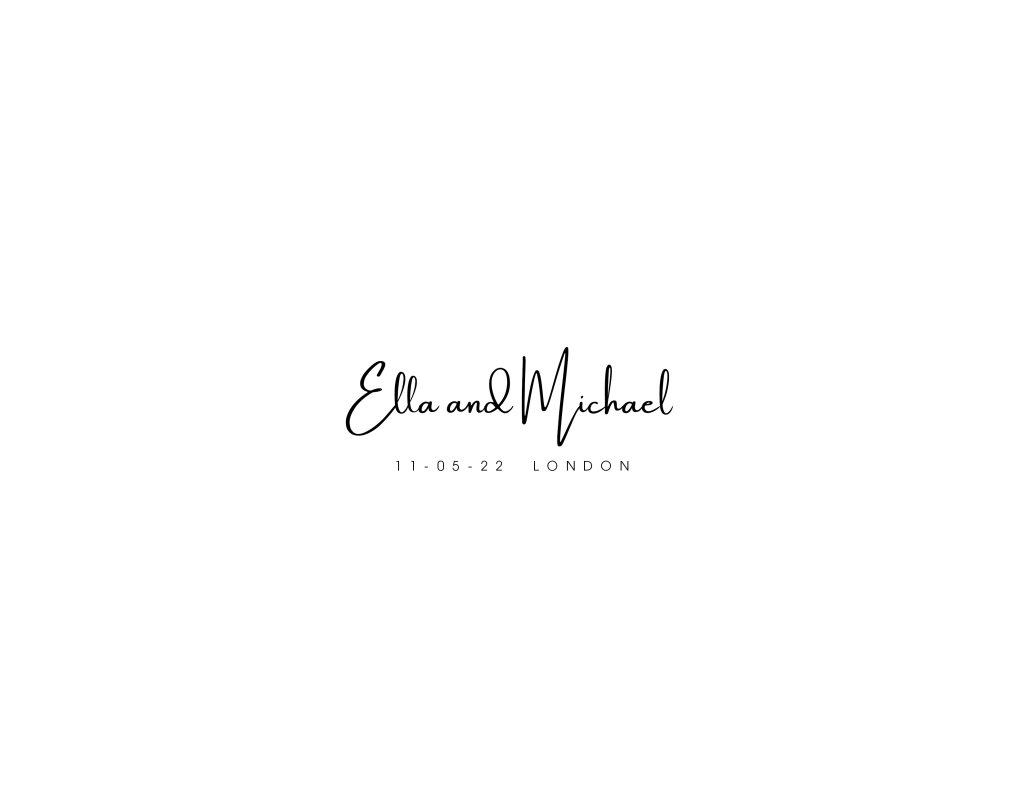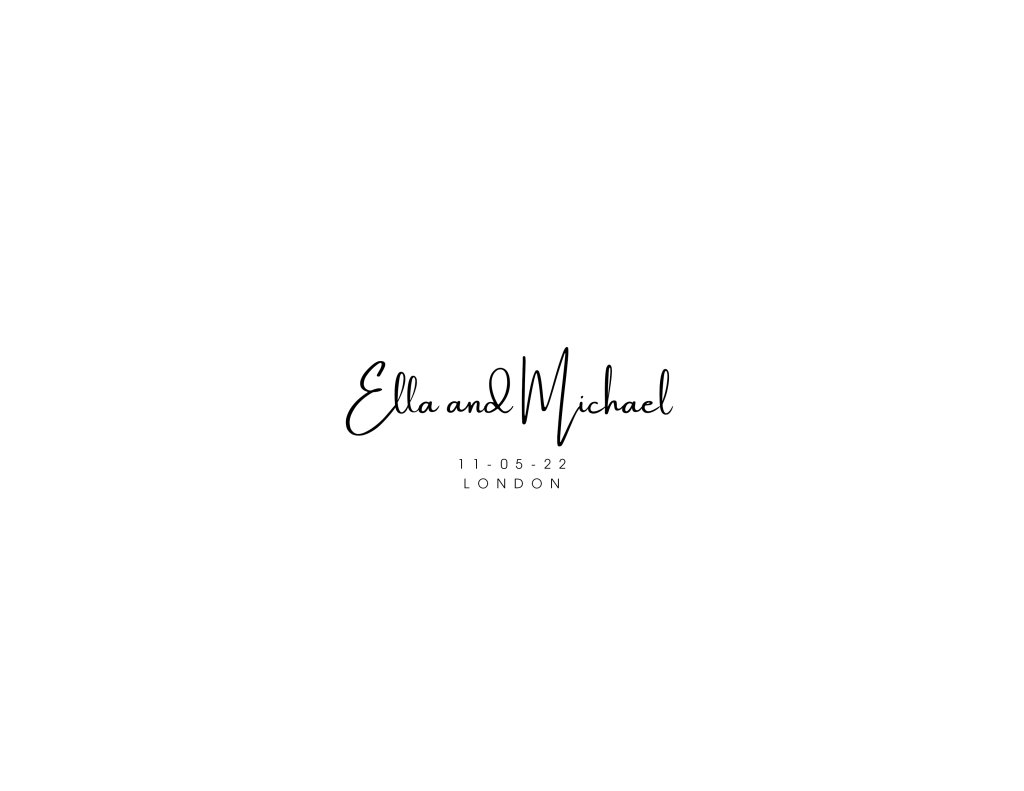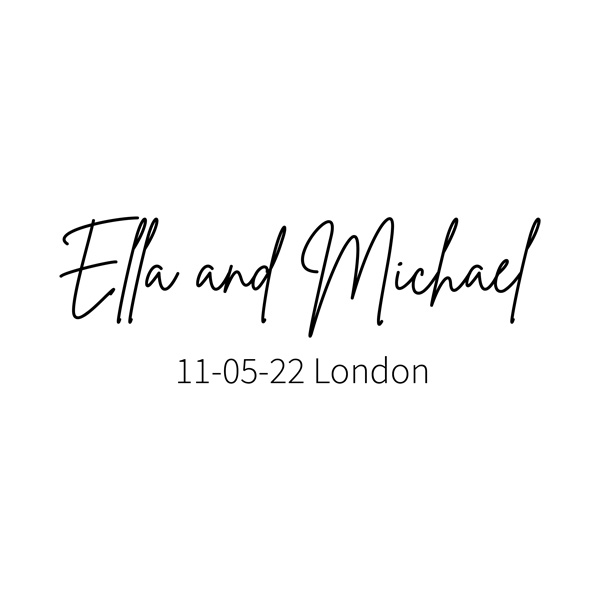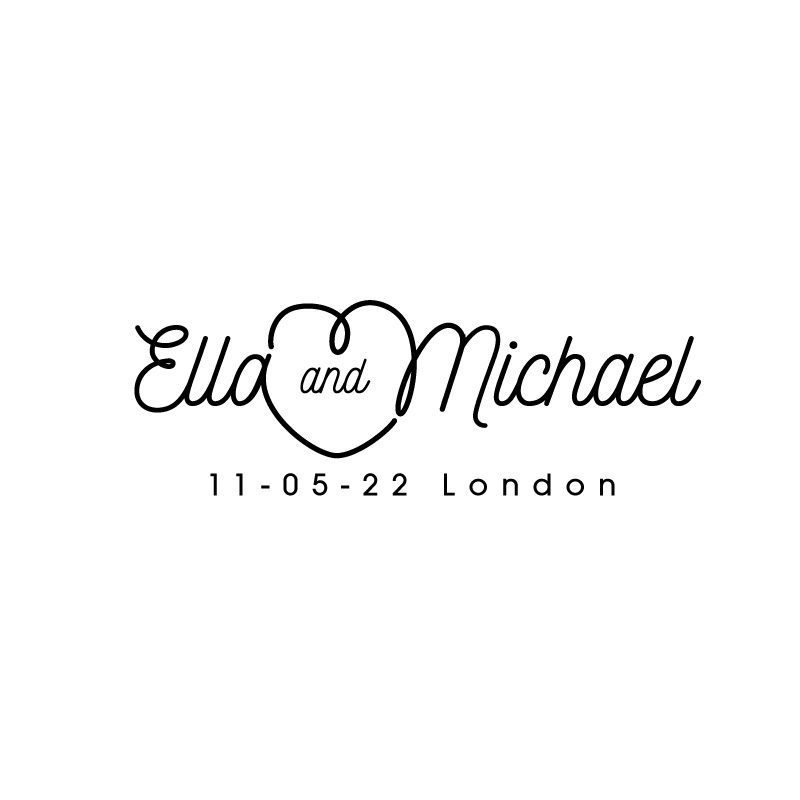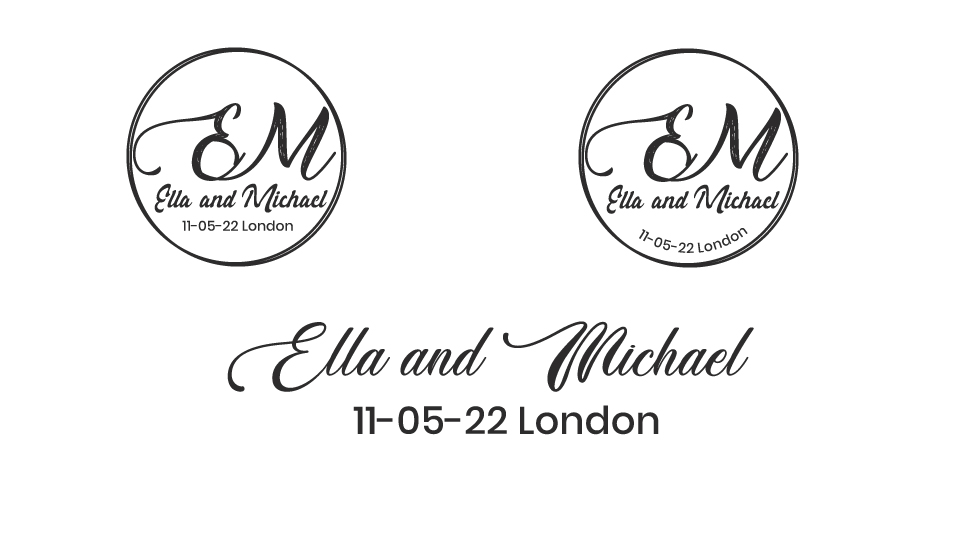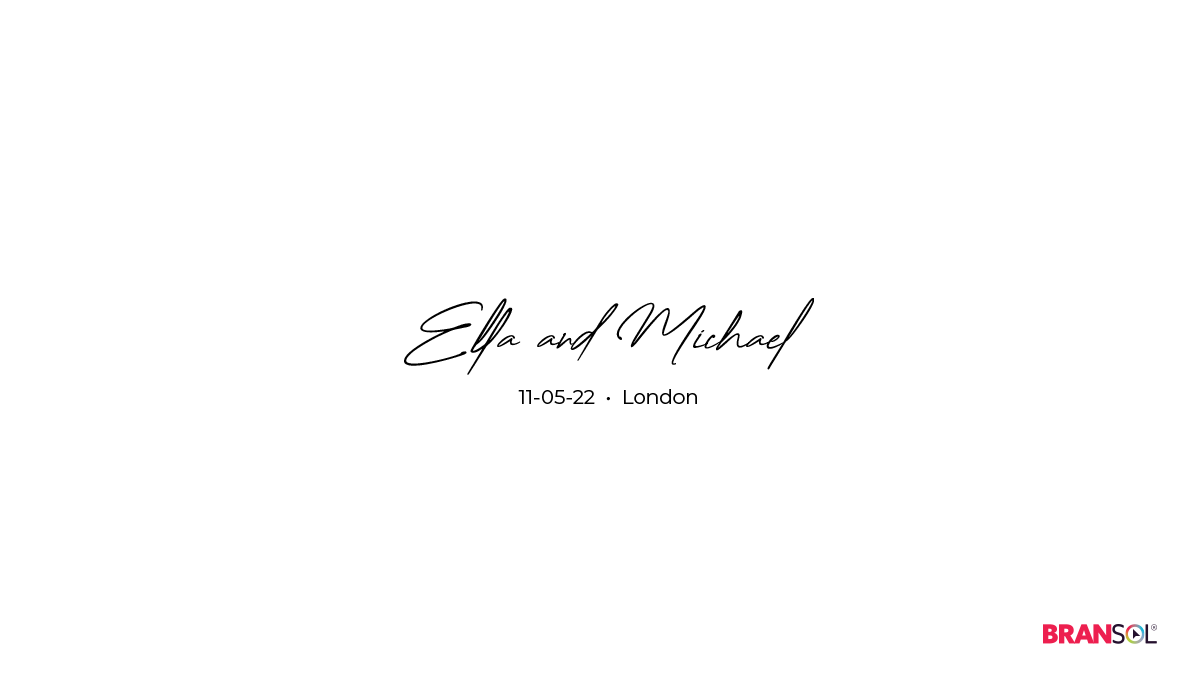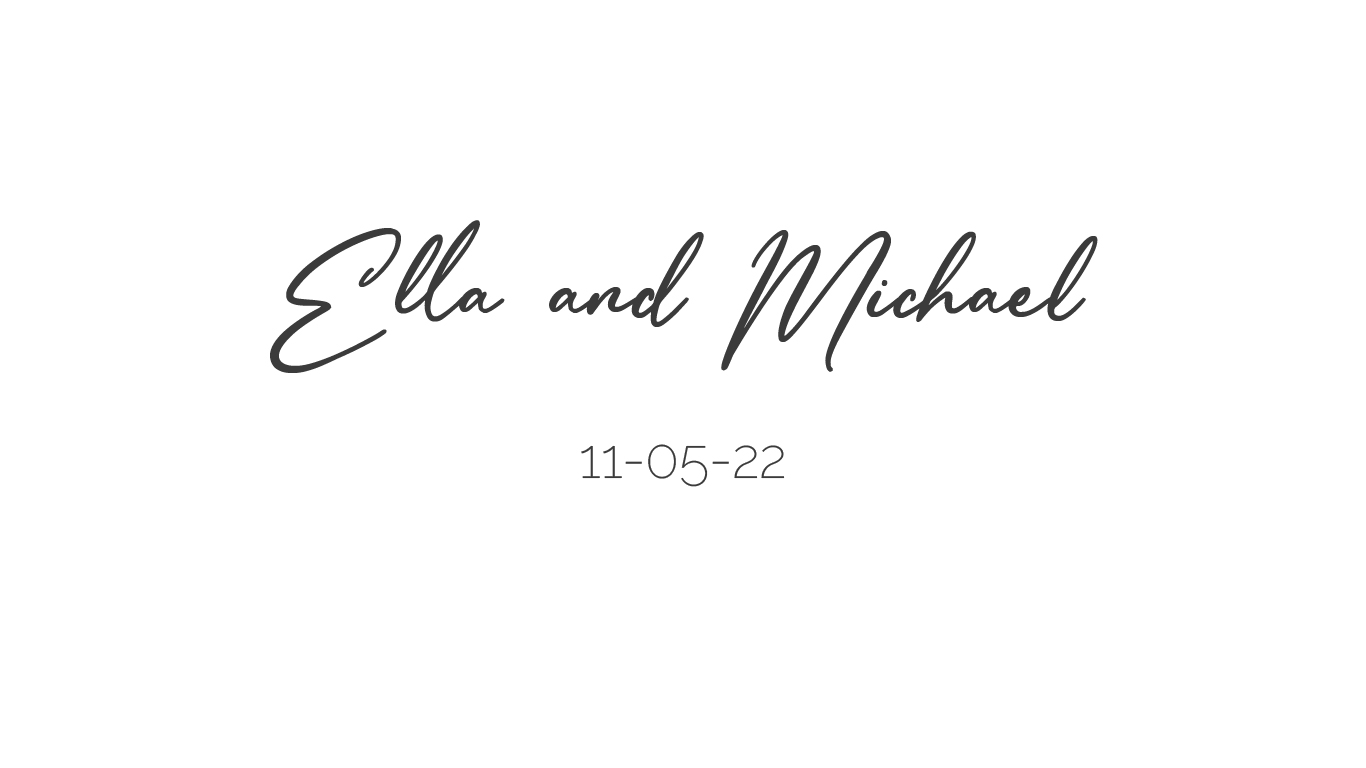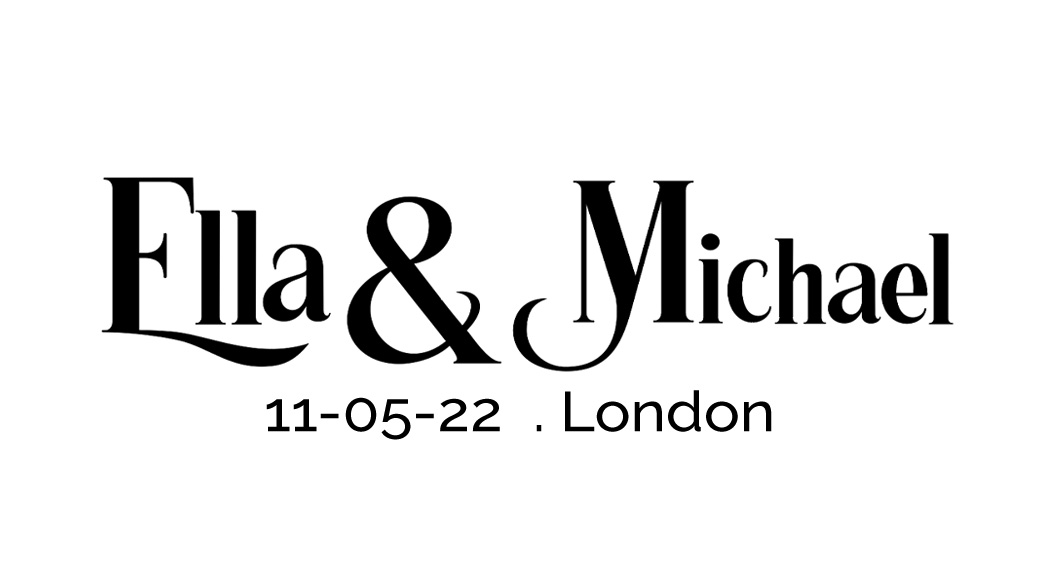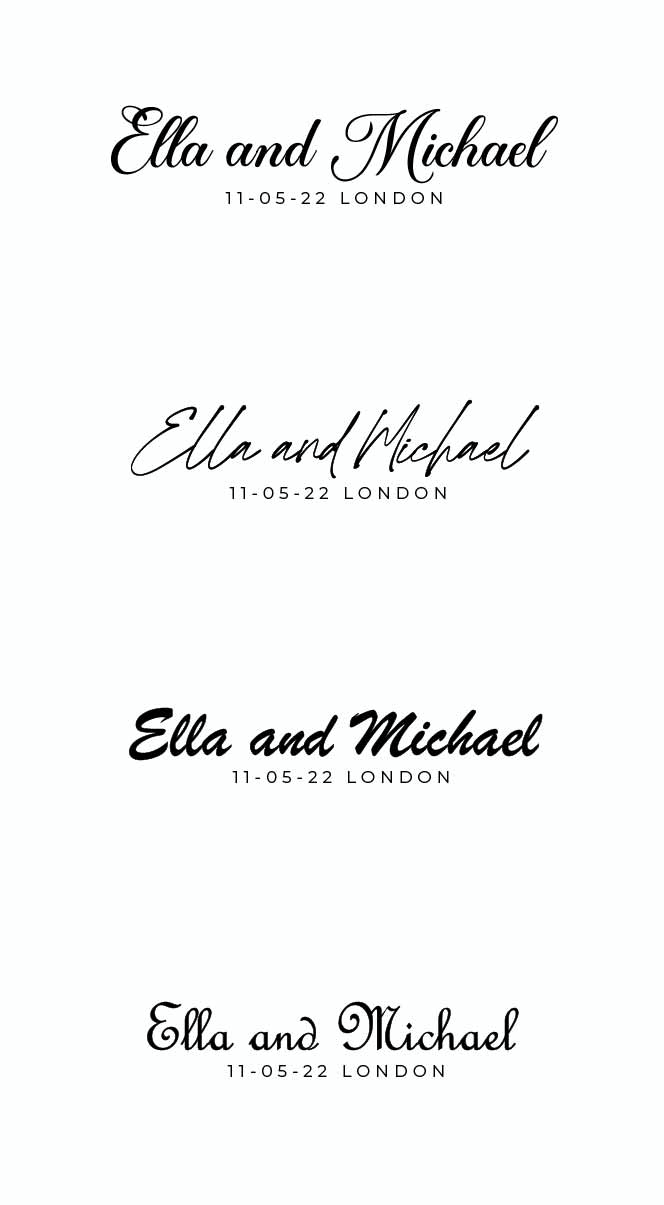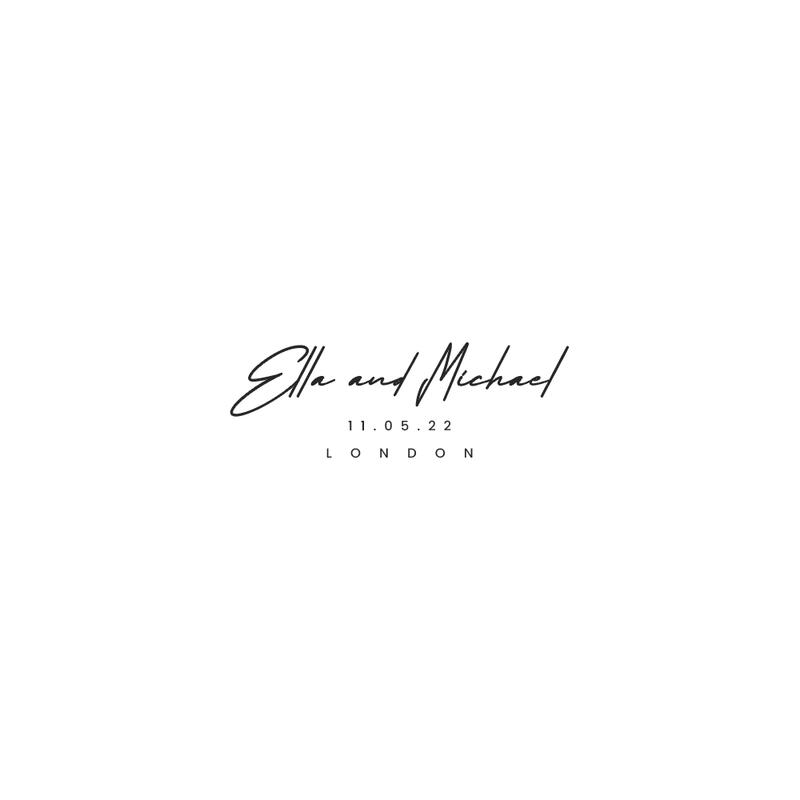
I need someone who has experience with beautiful font pairings to choose two fonts for a wedding gift
The first font will be a handwritten font the couple's name "Ella and Michael"
The second font will be a sans serif with the date and location of the wedding "11-05-22 London"